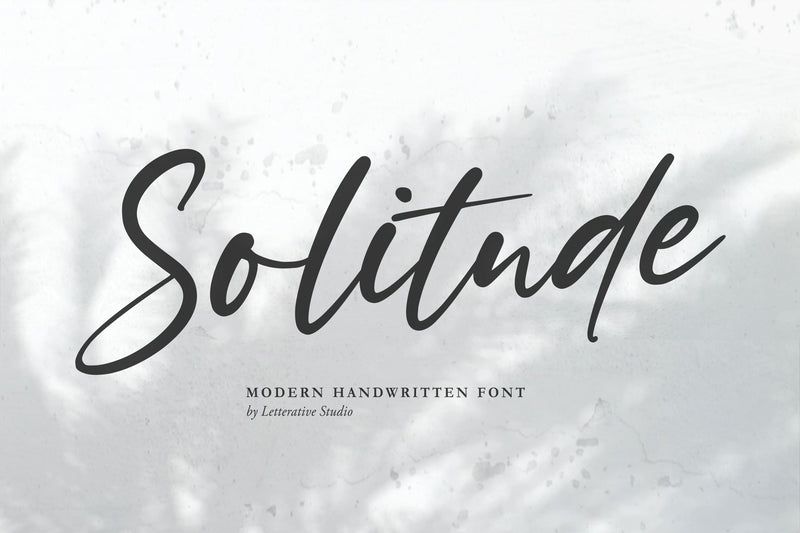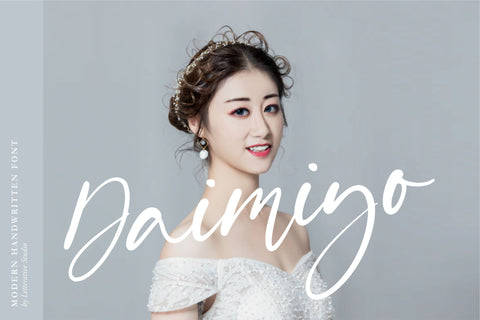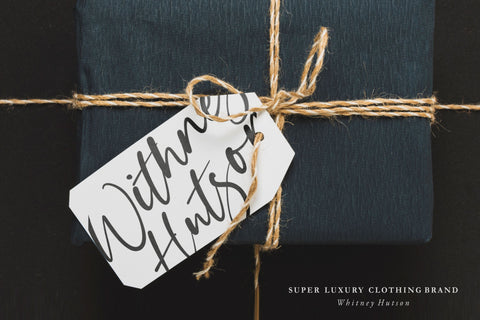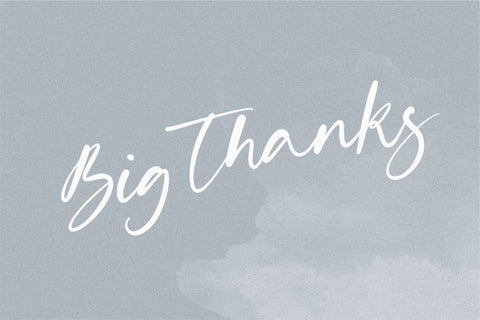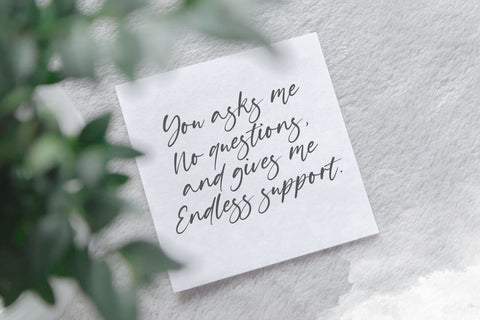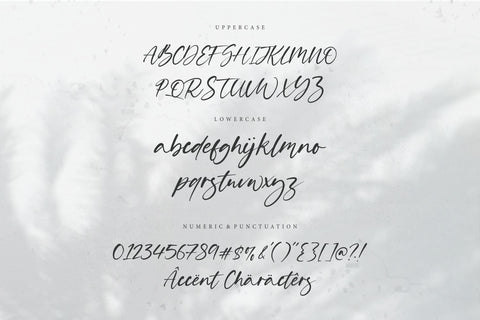
Solitude Modern Handwritten Font
Introducing by Letterative Studio : Solitude Font
Solitude is Modern Handwritten Font
Solitude is a sweet script font with a relaxed theme, featuring a lovely style. No matter the topic, this font will be an incredibly asset to your fonts’ library, as it has the potential to elevate any creation.
Solitude also multilingual support